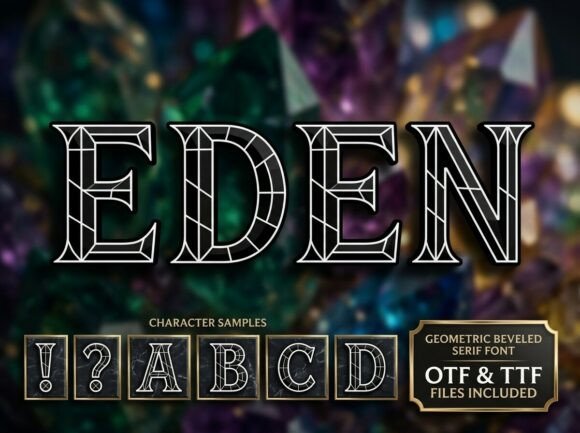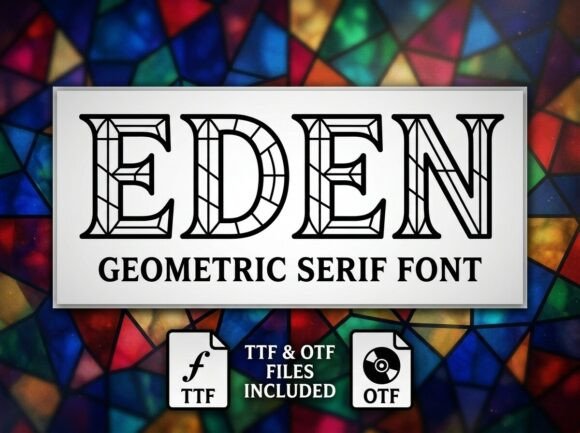
The Ultimate Guide to Eden Font: Elevate Your Designs with a Stunning Display Font
Have you ever been in the middle of a design project, only to find yourself stuck on one thing: the perfect font? I recall working on a branding project for a luxury client, where I spent hours scouring the internet for a font that exuded elegance and sophistication. The client wanted a font that would make their logo stand out, but still convey a sense of professionalism. That’s when I stumbled upon Eden Font, a game-changing decorative display font that instantly elevated my design.
A First Impression: What Makes Eden Font Special
Eden Font is a stunning decorative display font designed to be the center of attention. With its unique artistic elements and strong visual personality, this font is perfect for creators who want to break away from the ordinary. Whether you’re working on bold headlines, artistic logos, or creative packaging, Eden Font maintains a professional and polished finish.
Honest Review: The Good and the Quirks
- ✨ Unique and artistic design that’s perfect for making a statement.
- ✅ Professional and polished finish, suitable for high-end clients.
- 💥 Versatile enough for various design projects, from headlines to logos.
⚠️ As an ALL-CAPS (Uppercase Only) display typeface, Eden Font does not include lowercase letters. This might be a limitation for some designers, but it’s specifically designed for high-impact headlines, logos, and decorative initials where every letter is a work of art.
The Story Behind Eden Font
Eden Font was designed with the intention of creating a unique and eye-catching display font. The designer aimed to craft a font that would be perfect for high-impact headlines, logos, and decorative initials. With its strong visual personality and artistic elements, Eden Font is sure to make a statement in any design project.
Q: Is Eden Font suitable for body text?
A: No, Eden Font is specifically designed as a display font for headlines, logos, and decorative initials. It’s not recommended for body text due to its unique design and ALL-CAPS nature.
Q: Does Eden Font include OpenType features?
A: Yes, Eden Font includes OpenType features, glyphs, and stylistic alternates, making it a versatile font for various design projects.